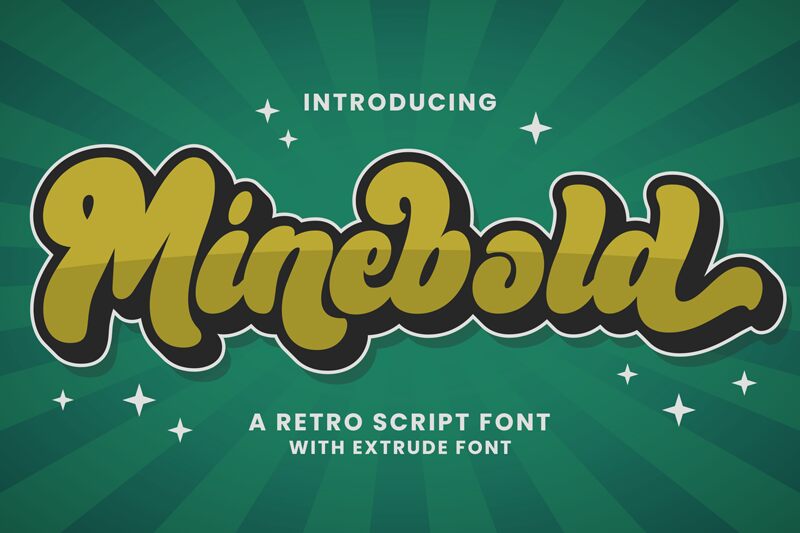
Minebold, crafted by Ahwe Project, is a font that exudes confidence with its robust and flowing brush strokes. Its bold character lends a sense of immediacy and impact, ideal for making statements that stand out. The smoothness of its lines adds an organic touch, reminiscent of confident hand-lettering that brings warmth and personality to the text.
Perfect for branding projects, advertisements, or any design needing a touch of bold elegance, Minebold captures attention while maintaining readability. Whether on a poster or the cover of a book, this font's striking presence ensures your message is not only seen but felt.
Minebold